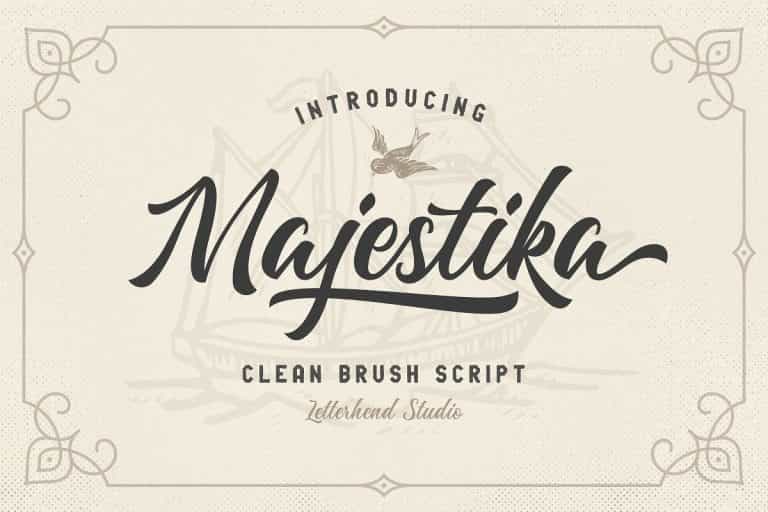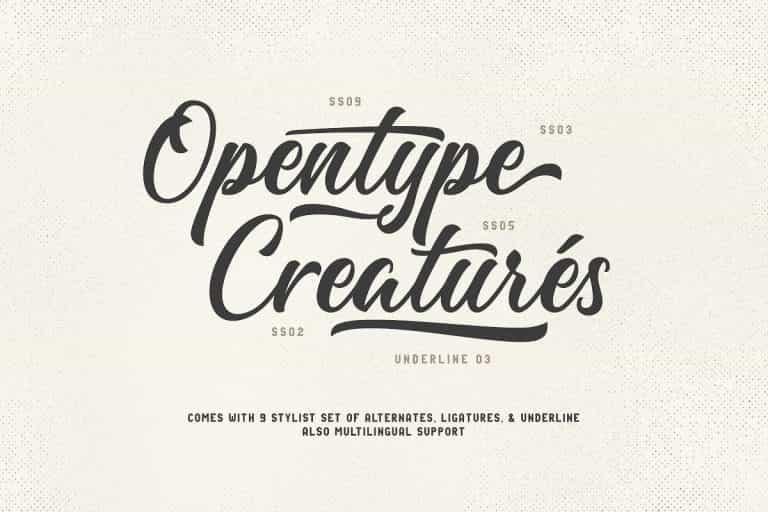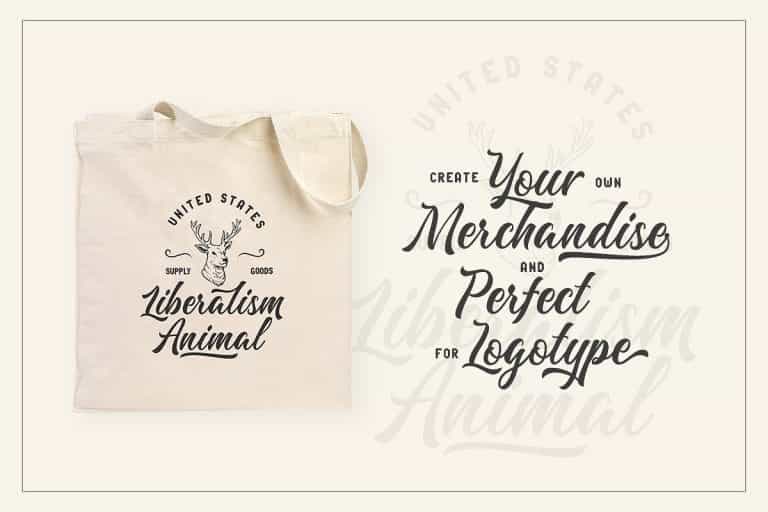
Discover Majestika Brush Script Font, part of the Calligraphy Handwritten collection—a versatile and unique font perfect for adding a personal touch to your projects. Download it for free and enjoy crafting designs with style, from invitations to social media posts. This font is available exclusively for personal use, giving you the freedom to create without limits. Unlock your creativity with Majestika Brush Script Font today!
Introducing Majestika Font. Majestika Script is a stunning modern calligraphy that can be used as the headline, logotype, apparel, invitation or branding typeface. This typeface includes uppercase and lowercase letters, punctuations, symbols & numerals; it also has stylistic set alternates and ligatures etc.